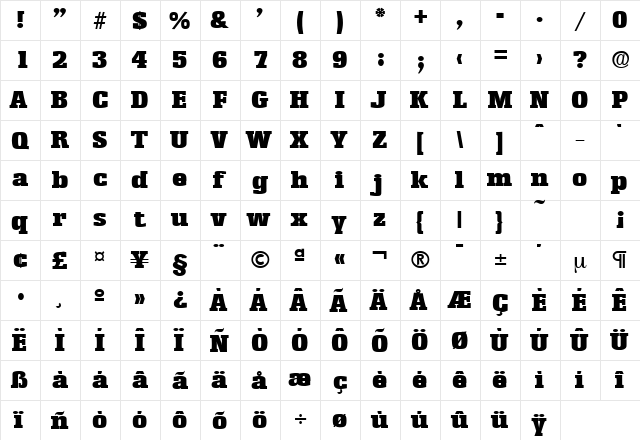
Enschede-Serial-Black DB Regular
Design Context for Enschede-Serial-Black DB Typeface
Enschede-Serial-Black DB offers clean, dependable letterforms without strong stylistic allegiance, making it a practical choice for designers who need flexibility.